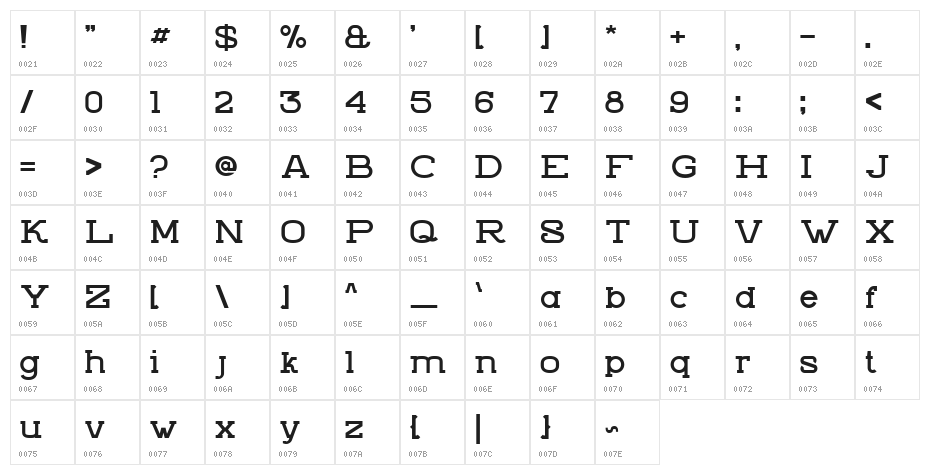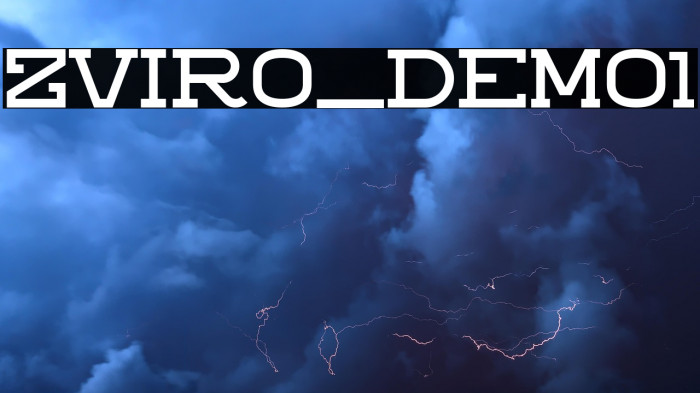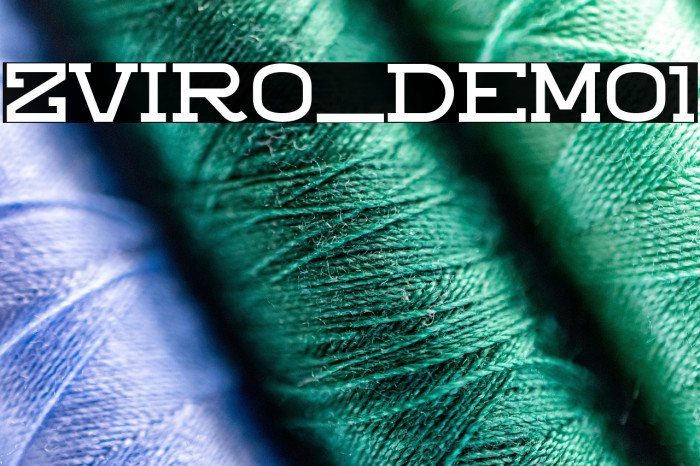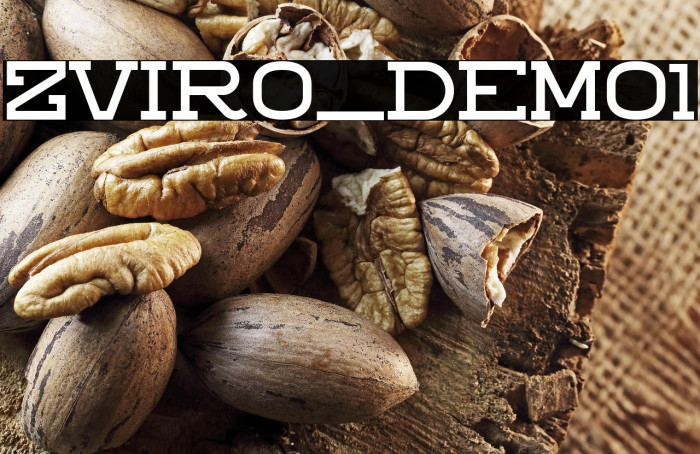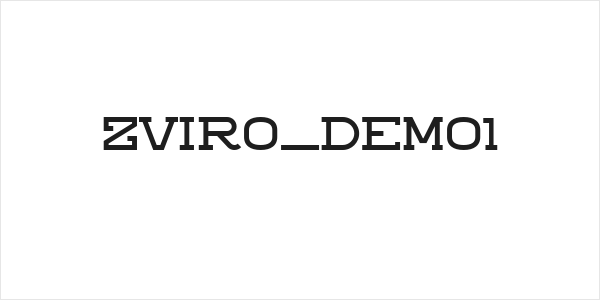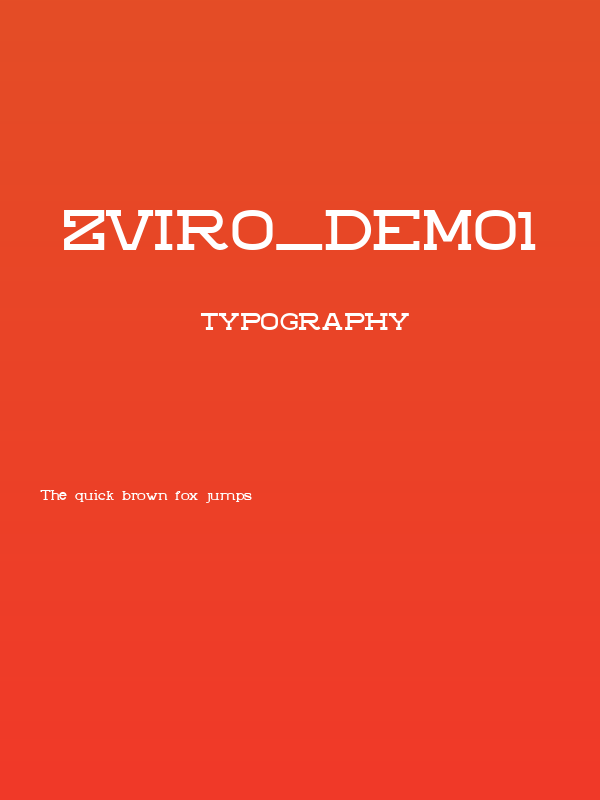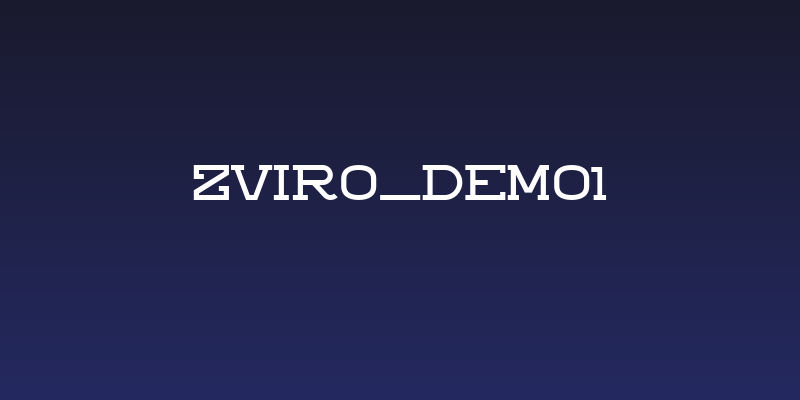
ZVIRO_DEMO1 Font
ZVIRO_DEMO1 Description
This font features a bold and structured design with a modern twist. The uppercase letters are characterized by strong, geometric lines and a uniform thickness, giving them a robust and impactful appearance. The lowercase letters maintain a similar style, with rounded edges that soften the overall look. Numbers are consistent with the alphabet, showcasing the same boldness and clarity. Special characters are well-integrated, maintaining the font's cohesive style. The font's design is both functional and aesthetically pleasing, making it suitable for various applications.
| Proposed Projects | Ideal for branding, headlines, posters, and digital media where a strong visual impact is desired. |